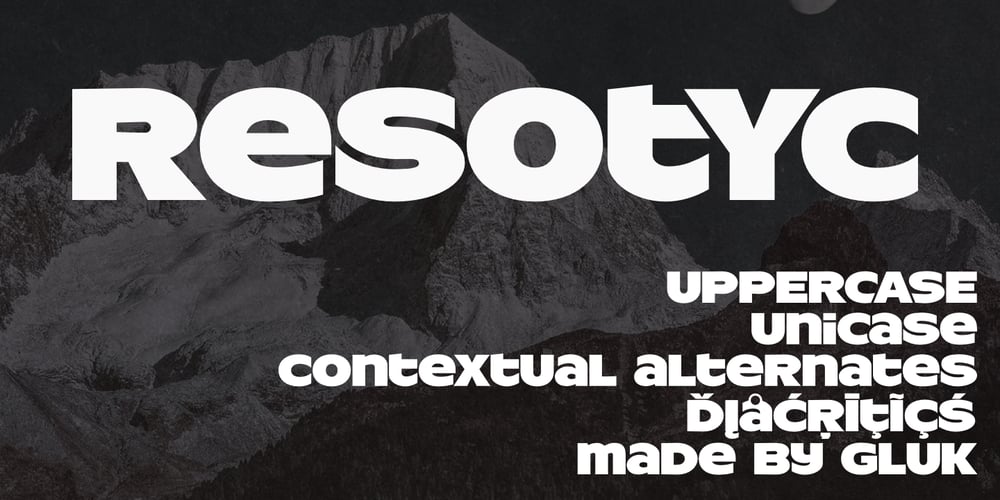
ResotYc Font Family was designed by Grzegorz Łuksza and published by Glukfonts. ResotYc contains 1 styles and family package options. Decorative, extra bold font ResotYc with which you can work in three ways: with Uppercase, with lowercase as Unicase and with mixed uppercase & lowercase for best result. Automatic contextual alternates and ligatures built into the font compensate for whitespace area differences. Geometric strokes and simplicity makes ResotYc Uppercase excellent for headers, banners or advertising slogans and MixedCase is perfect for fun headlines and outstanding logos.